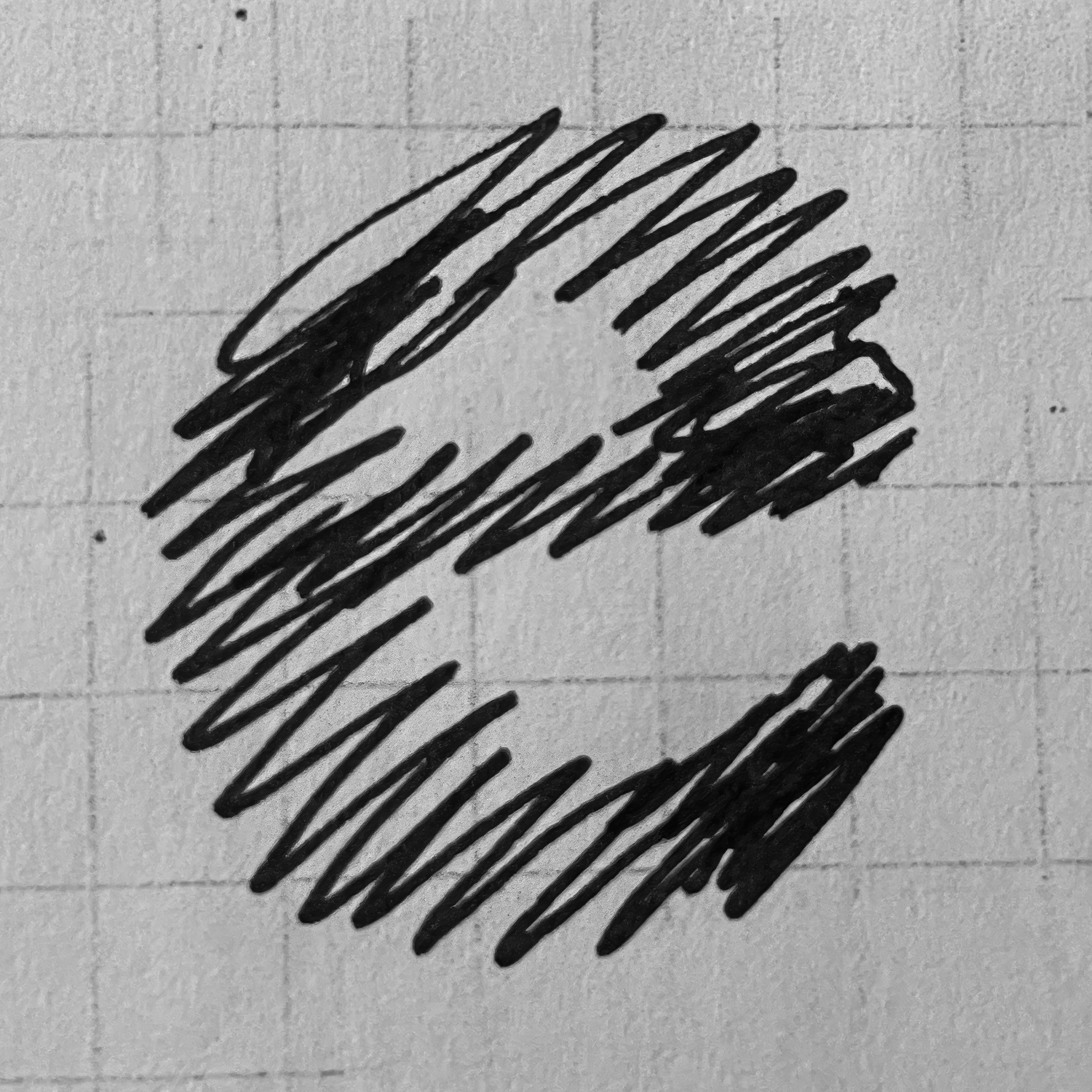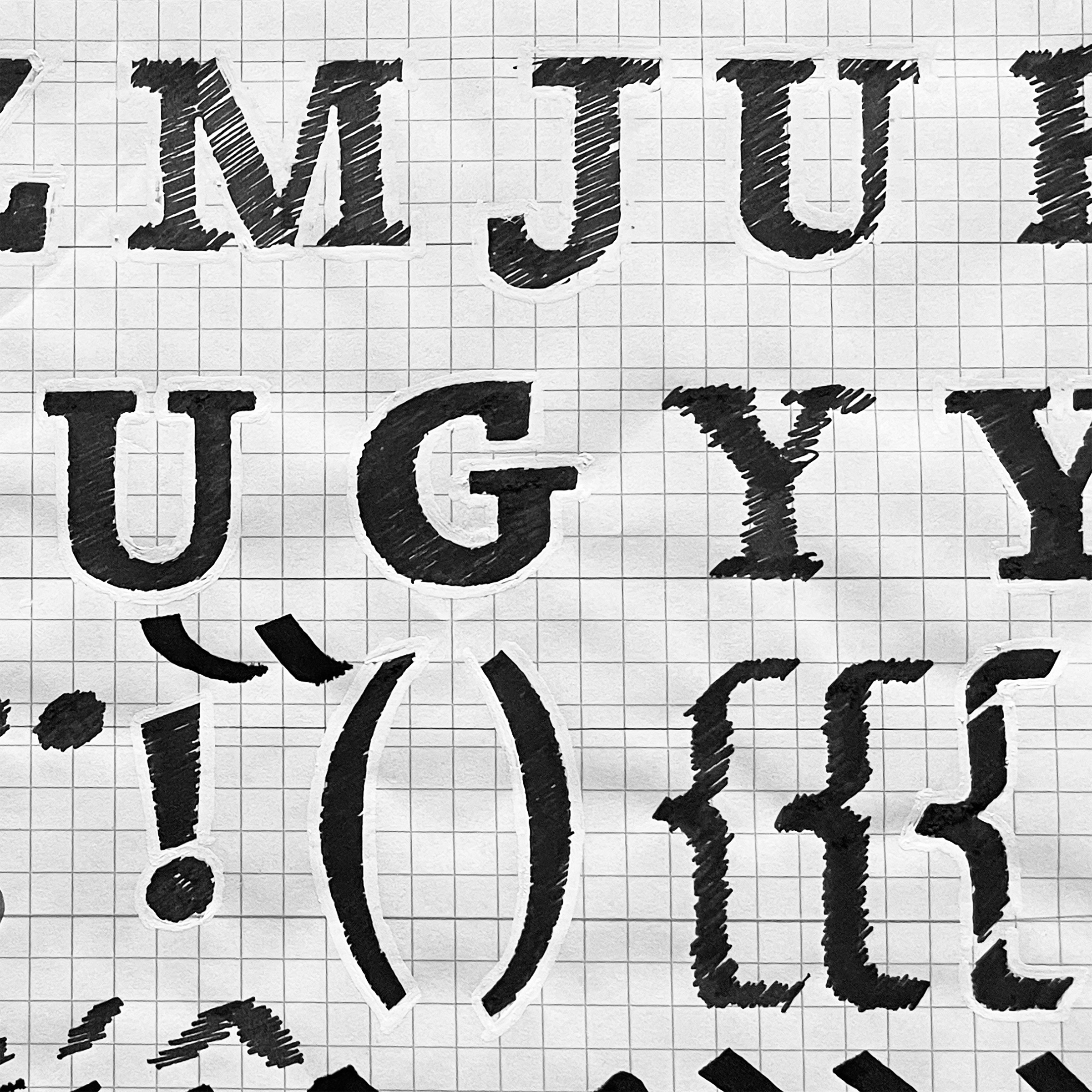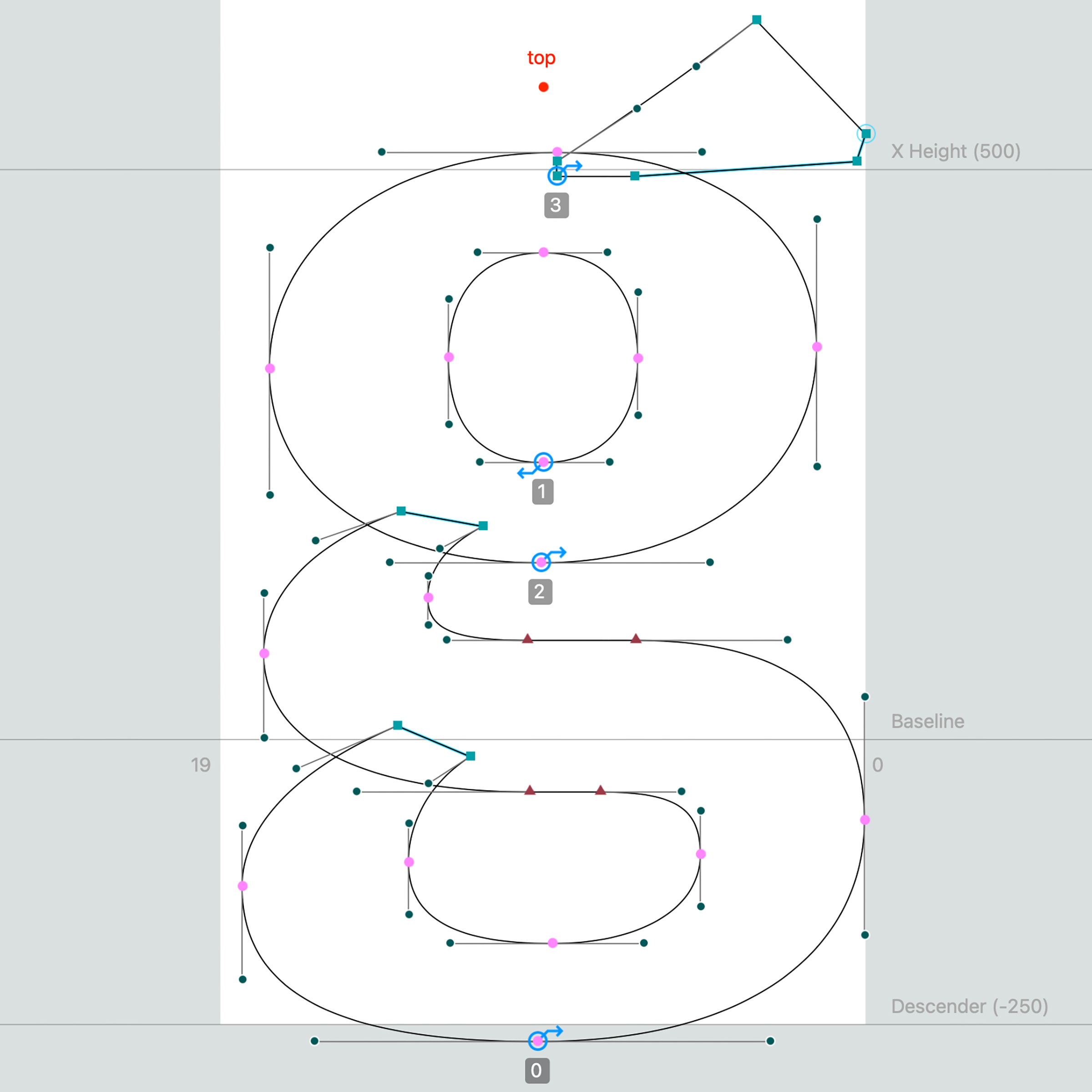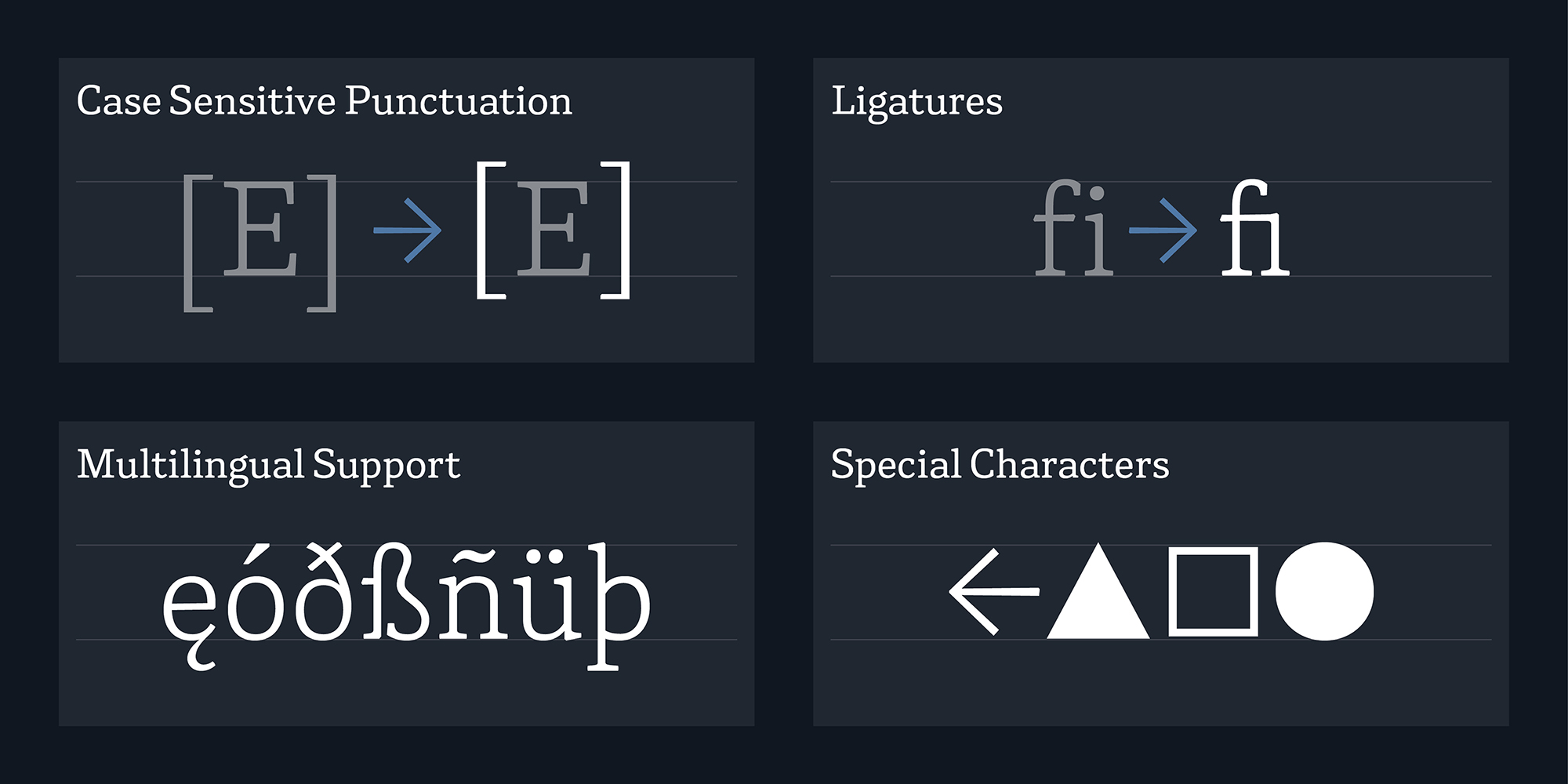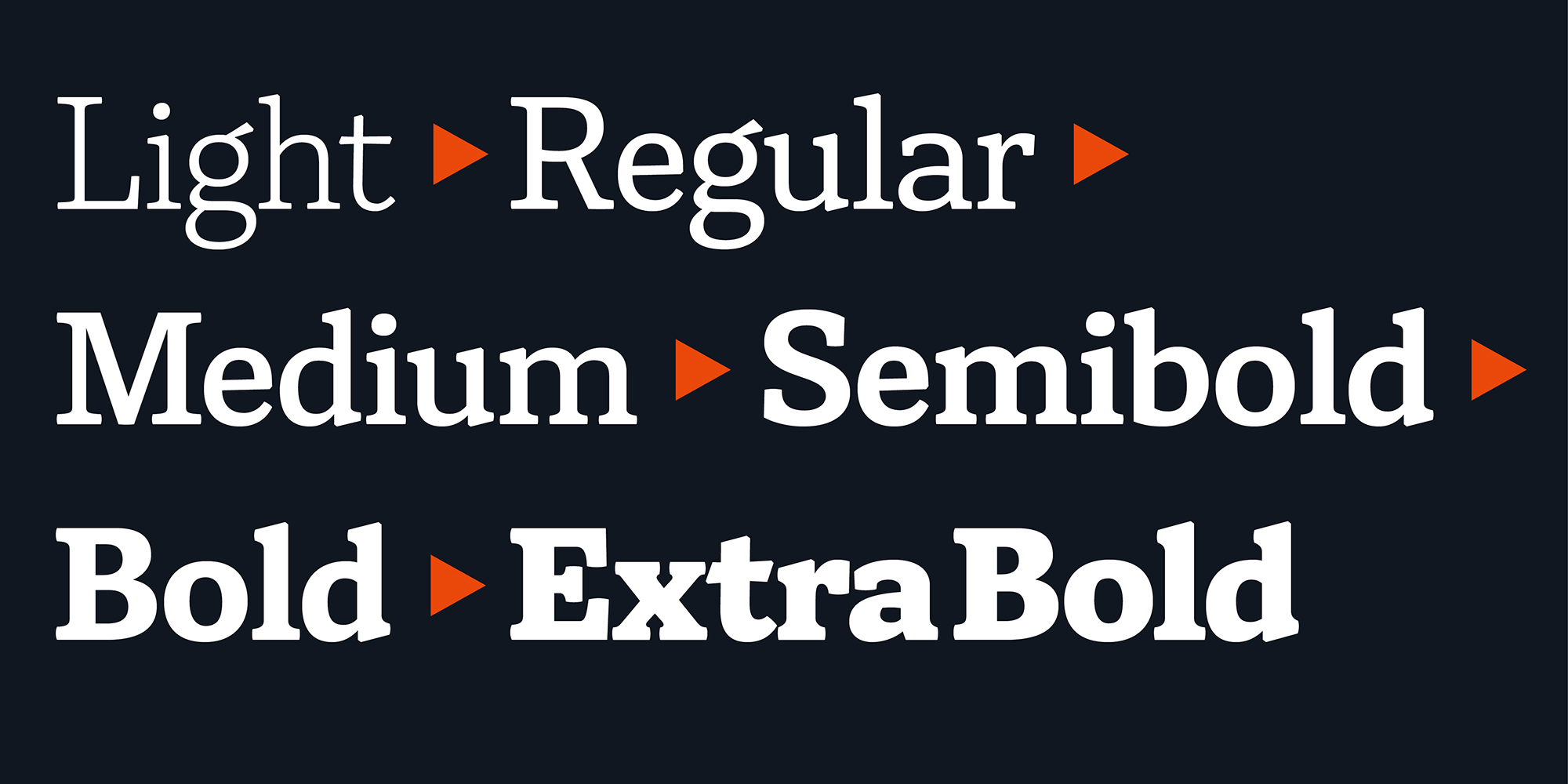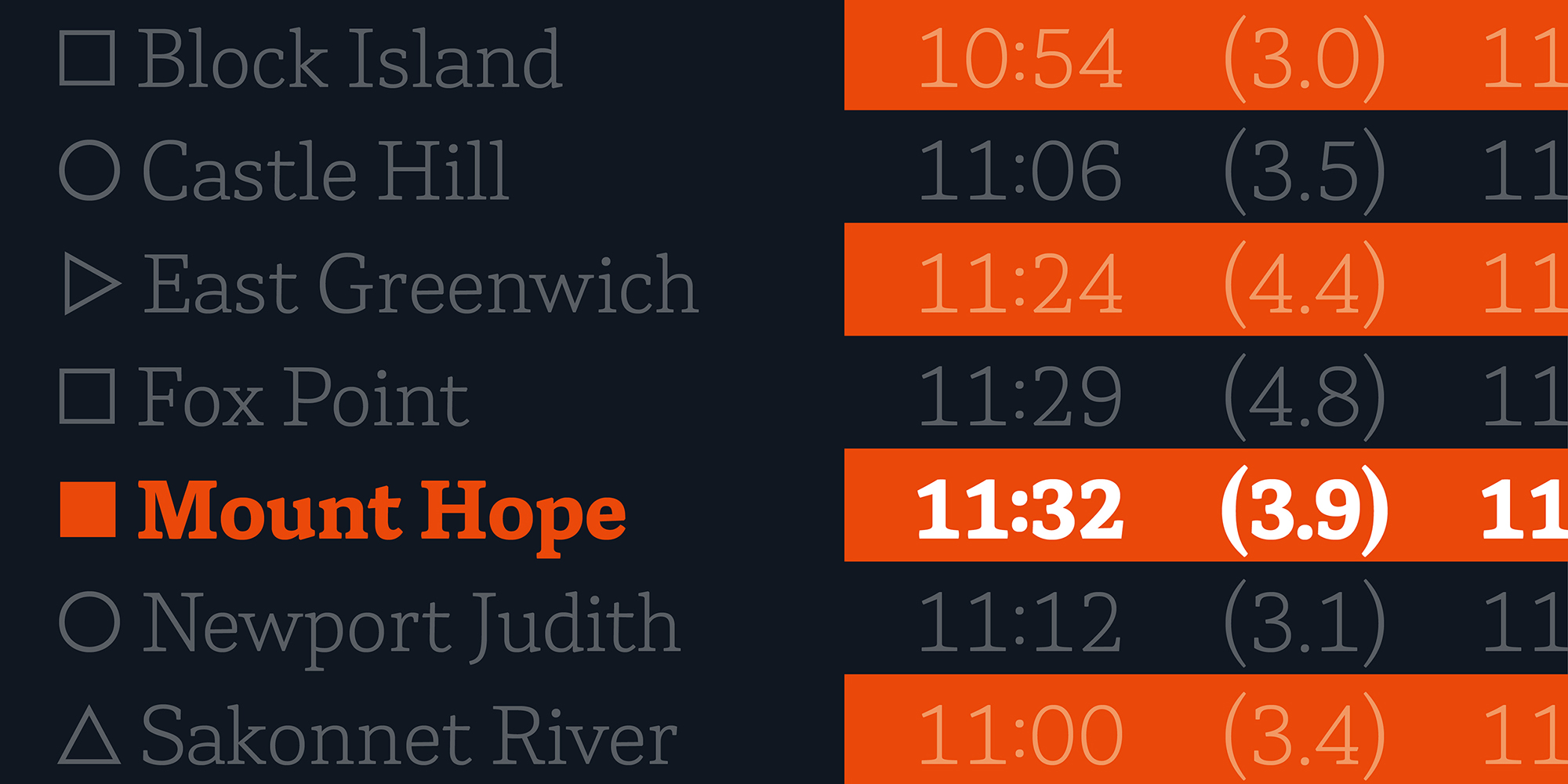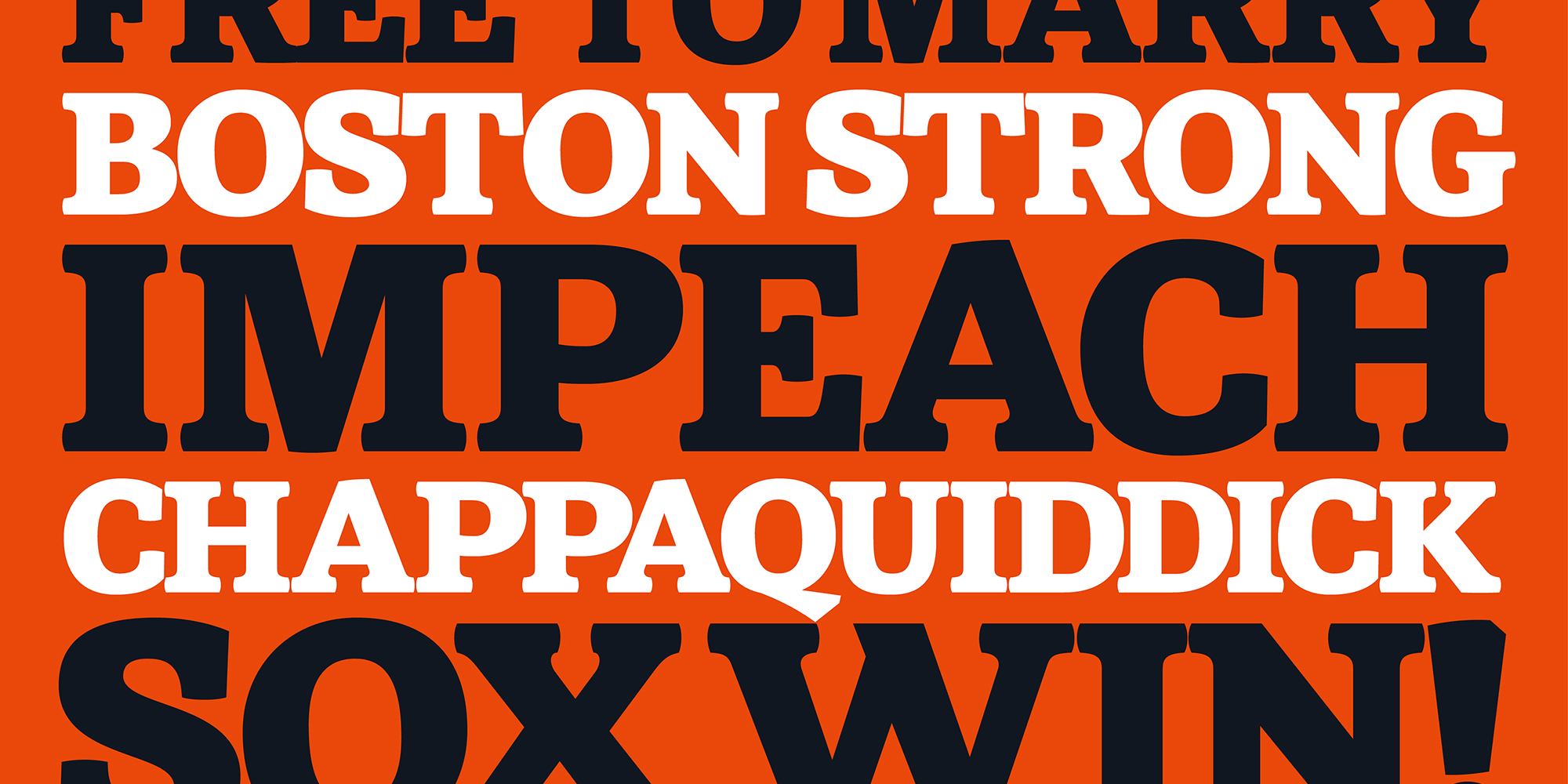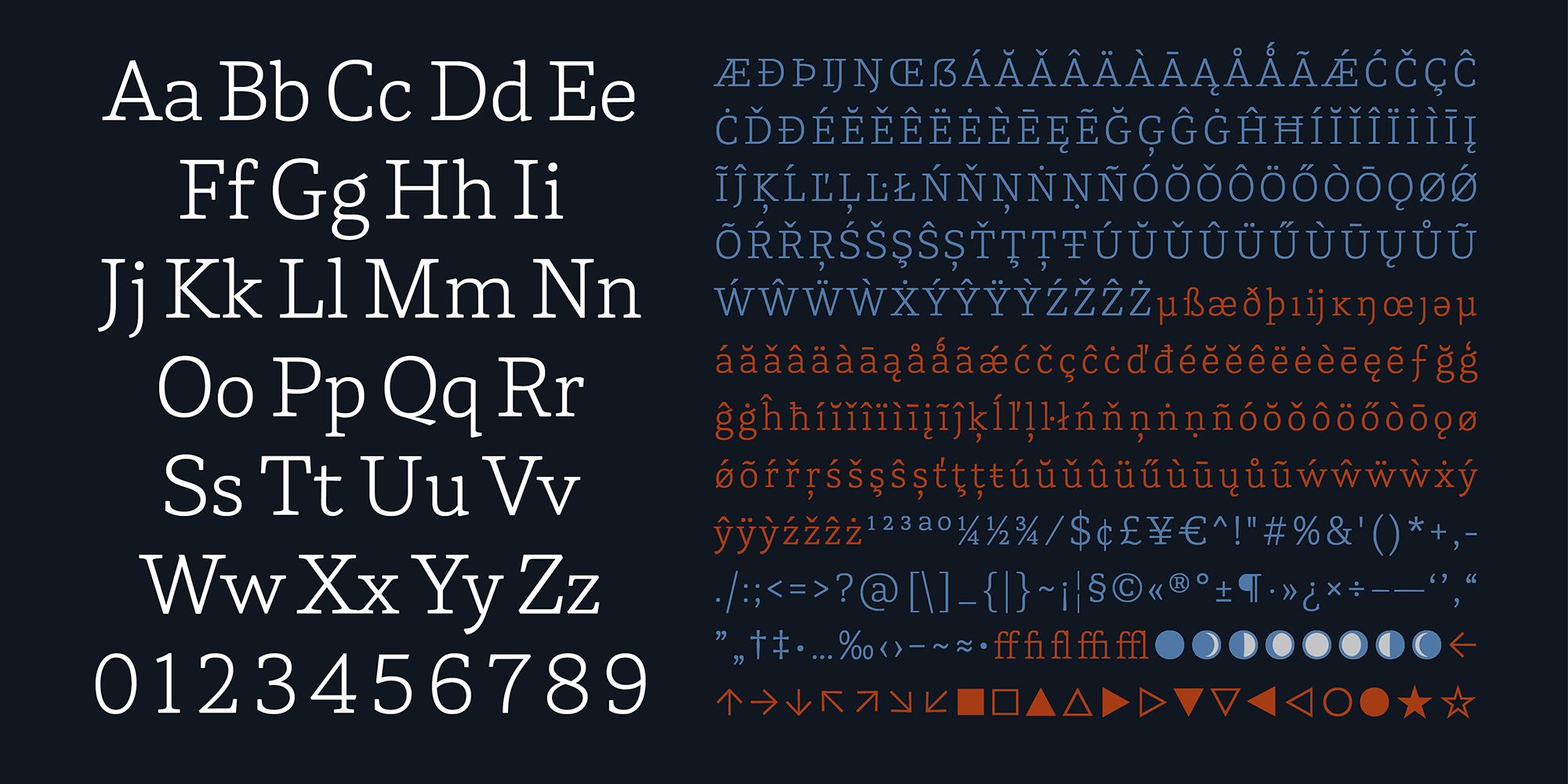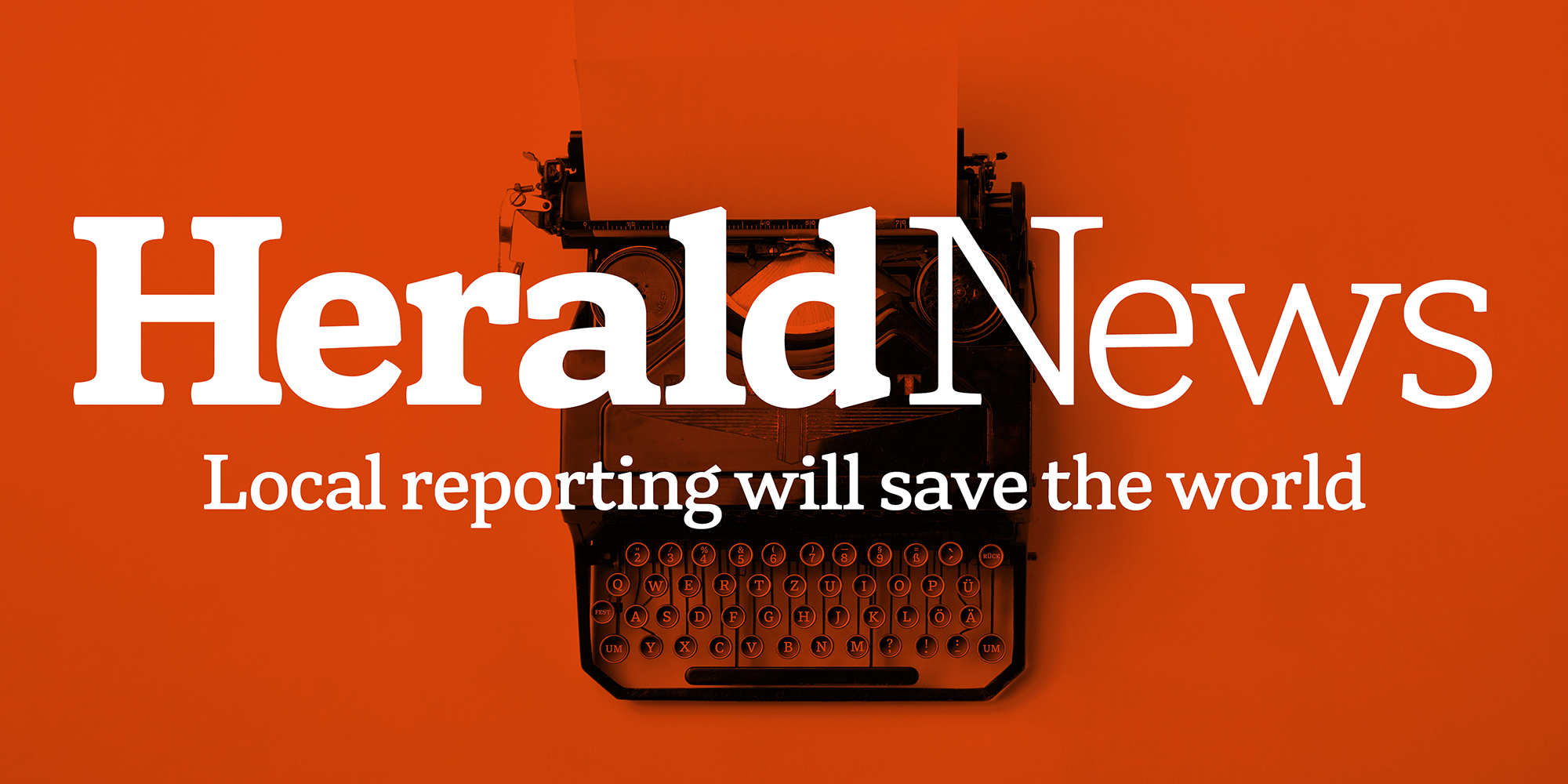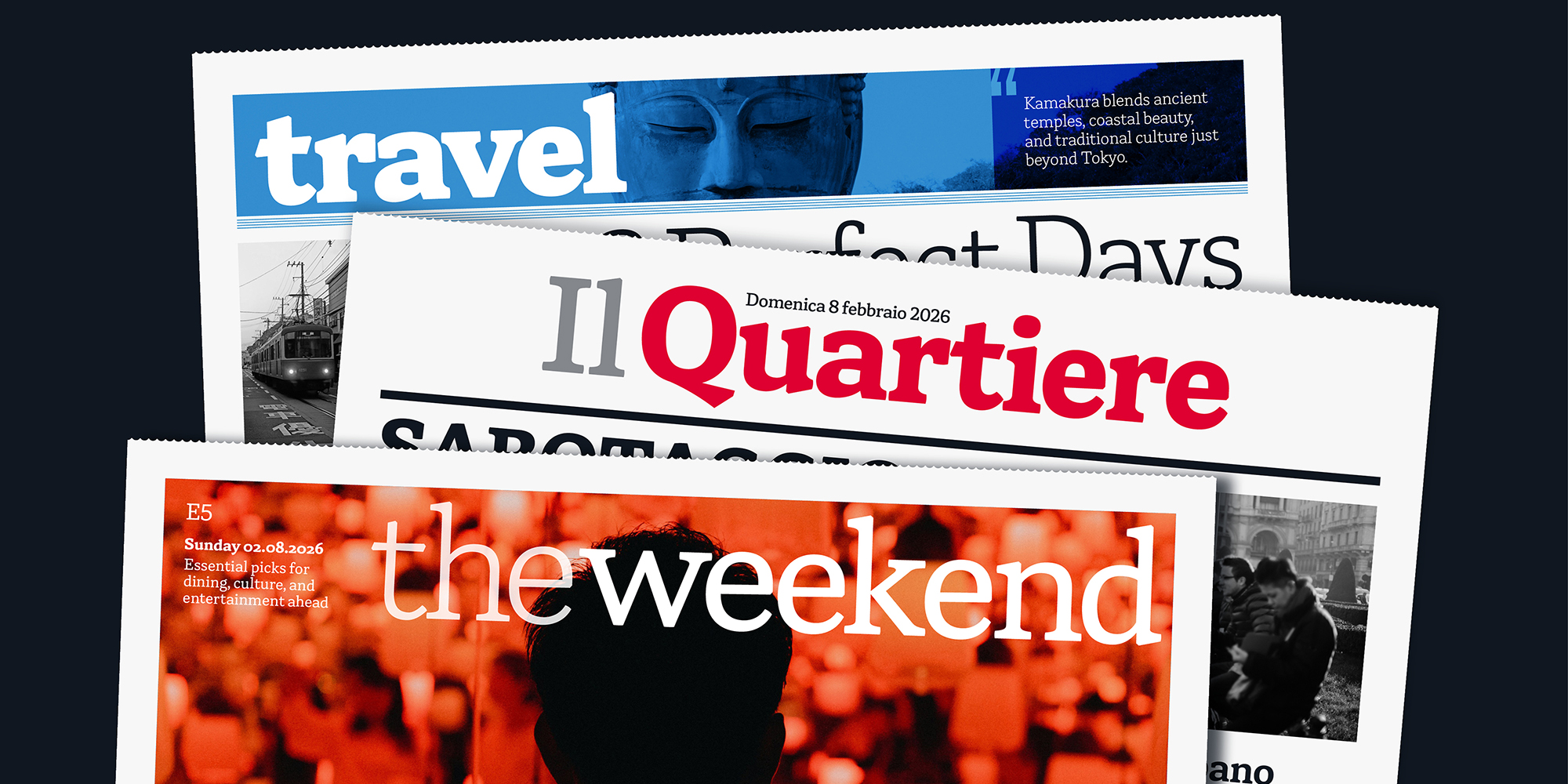
Herald News
Herald News typeface specimen showing the family name in bold serif over an orange background with a vintage typewriter
Three fictional newspaper sections set in Herald News — a travel supplement, a neighborhood paper masthead, and a weekend entertainment guide cover
Herald News Extra Bold and Bold weights used in newspaper headline typography: Free to Marry, Boston Strong, Impeach, Chappaquiddick, Sox Win!
Herald News typeface shown in fictional food magazine layouts: a recipe card and a restaurant feature
Herald News typeface specimen showing a fictional editorial magazine layout with a Cold Case feature titled "Inside the Borden Murders"
Herald News used in a data journalism context showing tide table information for Narragansett Bay locations including Mount Hope
Herald News typeface shown in a fictional local magazine restaurant review layout
Herald News used in fictional digital app layouts on multiple smartphone screen, showing a variety of content from business to art to sports
Herald News shown in two fictional editorial contexts: a pullquote and an entertainment listings page
Herald News used in a fictional sports section newspaper layout with the headline "Play Ball!"
Herald News character set showing the full Latin alphabet, numerals, extended Latin diacritics, ligatures, currency symbols, and special characters
Herald News type family weight range: Light, Regular, Medium, Semibold, Bold, and Extra Bold
Herald News OpenType features: oldstyle figures, tabular figures, fractions, and superior numerals
Herald News OpenType features: case-sensitive punctuation, standard ligatures, multilingual support, and special characters including arrows and geometric shapes
Light Regular Medium Semibold Bold ExtraBold
Inspired by local journalism, Herald News is a versatile serif text family crafted for editorial work. It strikes a balance between a serious tone suitable for hard-hitting stories and a warm feel for those that bring a smile.
The low-contrast design, featuring prominent serifs and rounded terminals, ensures excellent readability at small sizes while maintaining a commanding presence at display sizes. With six weights ranging from Light to Extra Bold, Herald News transitions seamlessly from body copy to striking front-page headlines.
This font family is equipped to handle any narrative demands. Its OpenType features enhance typographic precision, offering three figure styles, fractions, case-sensitive punctuation, and an extensive set of special characters tailored for the diverse needs of real publication work. Ideal for branding, web design, and editorial projects, Herald News combines functionality with aesthetic appeal, making it a reliable choice for any written content.
Original development sketches using the Noordzij technique — a quick way of drawing that simulates the use of a broad nib pen
Further development of upper case and some punctuation — trying to figure out as many details before digitizing
Drawing and refining curves in font design software — going through many iterations to get to the final design